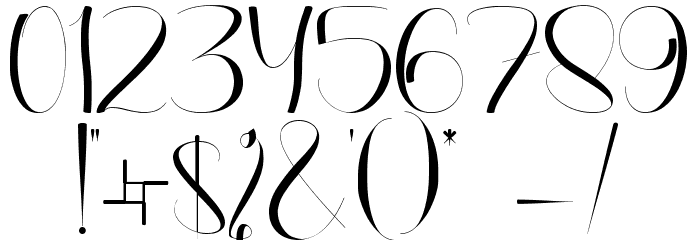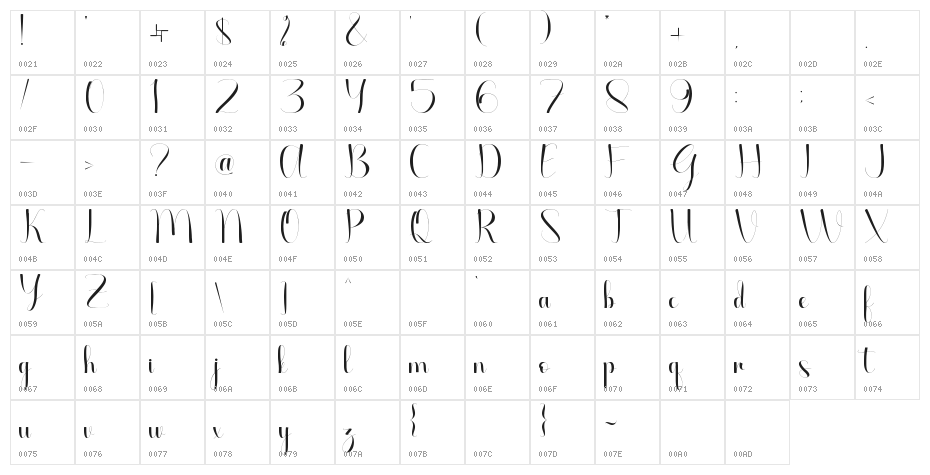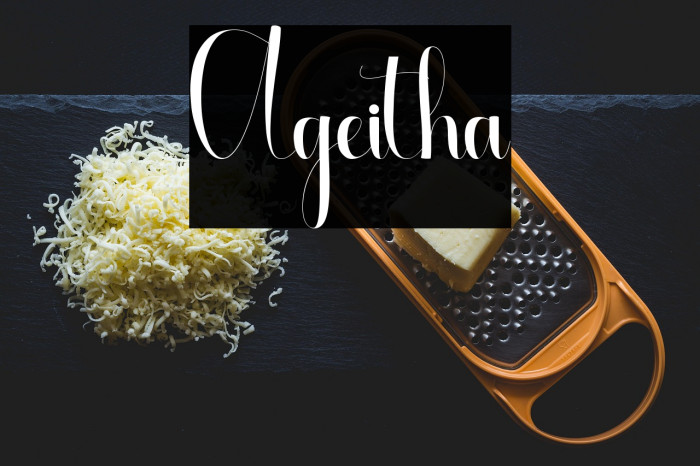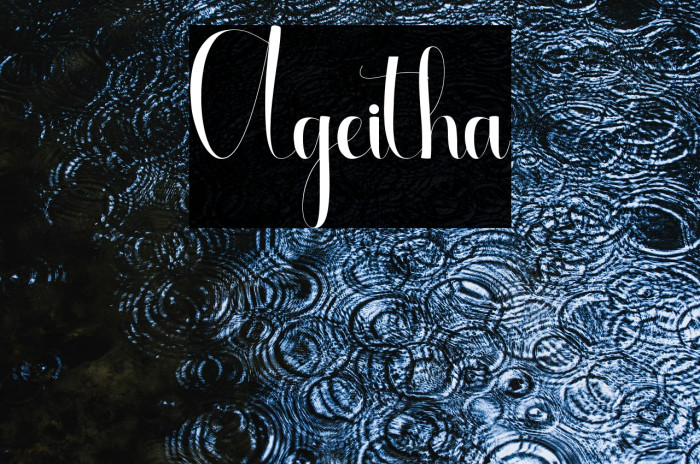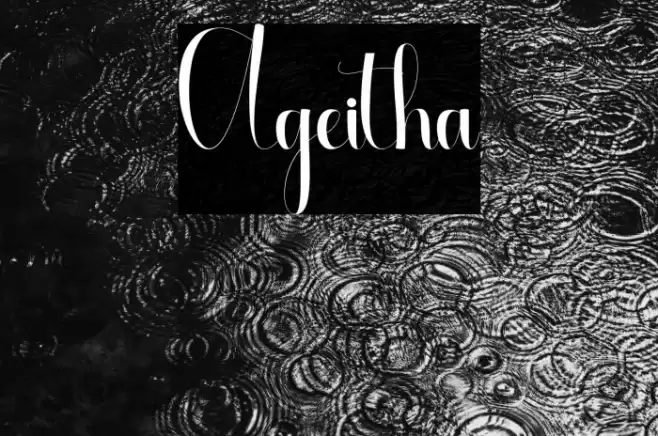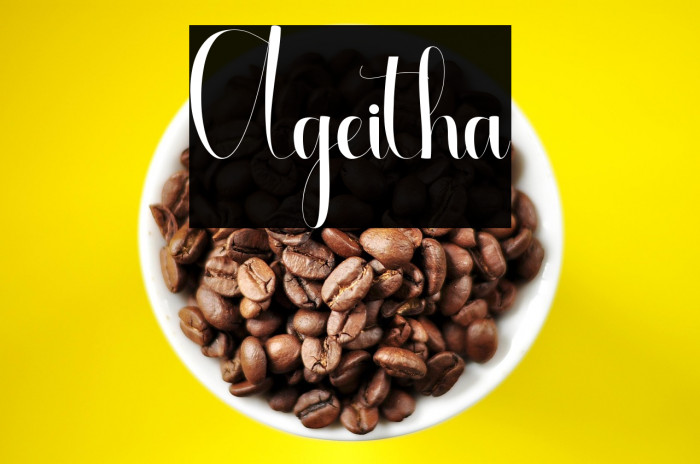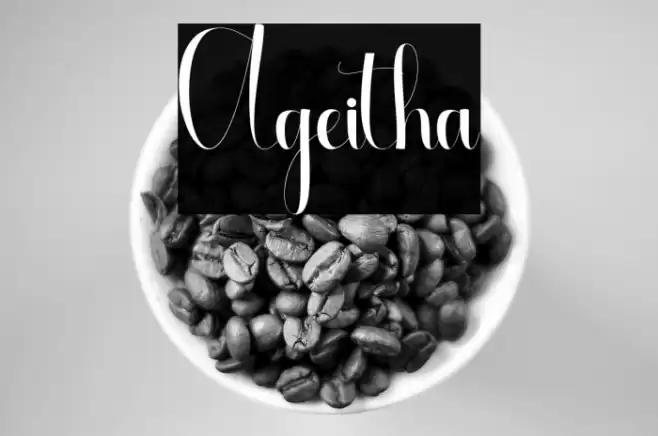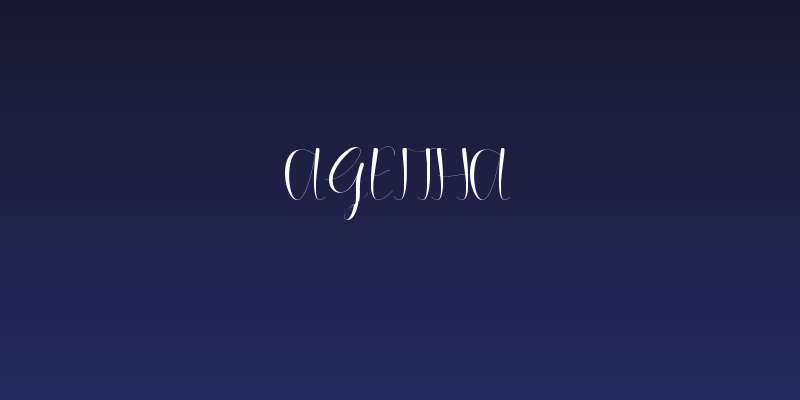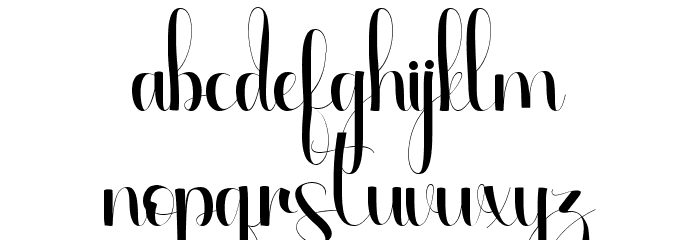
Ageitha Font
Ageitha Description
This elegant script font features a graceful, flowing style with high contrast between thick and thin strokes. The uppercase letters are tall and slender, with sweeping curves that give a sense of movement and fluidity. The lowercase letters maintain a consistent rhythm, with rounded forms and delicate connections. The numerals are stylish and complement the overall aesthetic, while the special characters add a touch of sophistication. This font's refined appearance makes it suitable for formal and decorative purposes.
| Use Case | Headlines, Invitations, Branding |
| Proposed Projects | Ideal for wedding invitations, elegant branding, luxury packaging, and decorative headlines. |